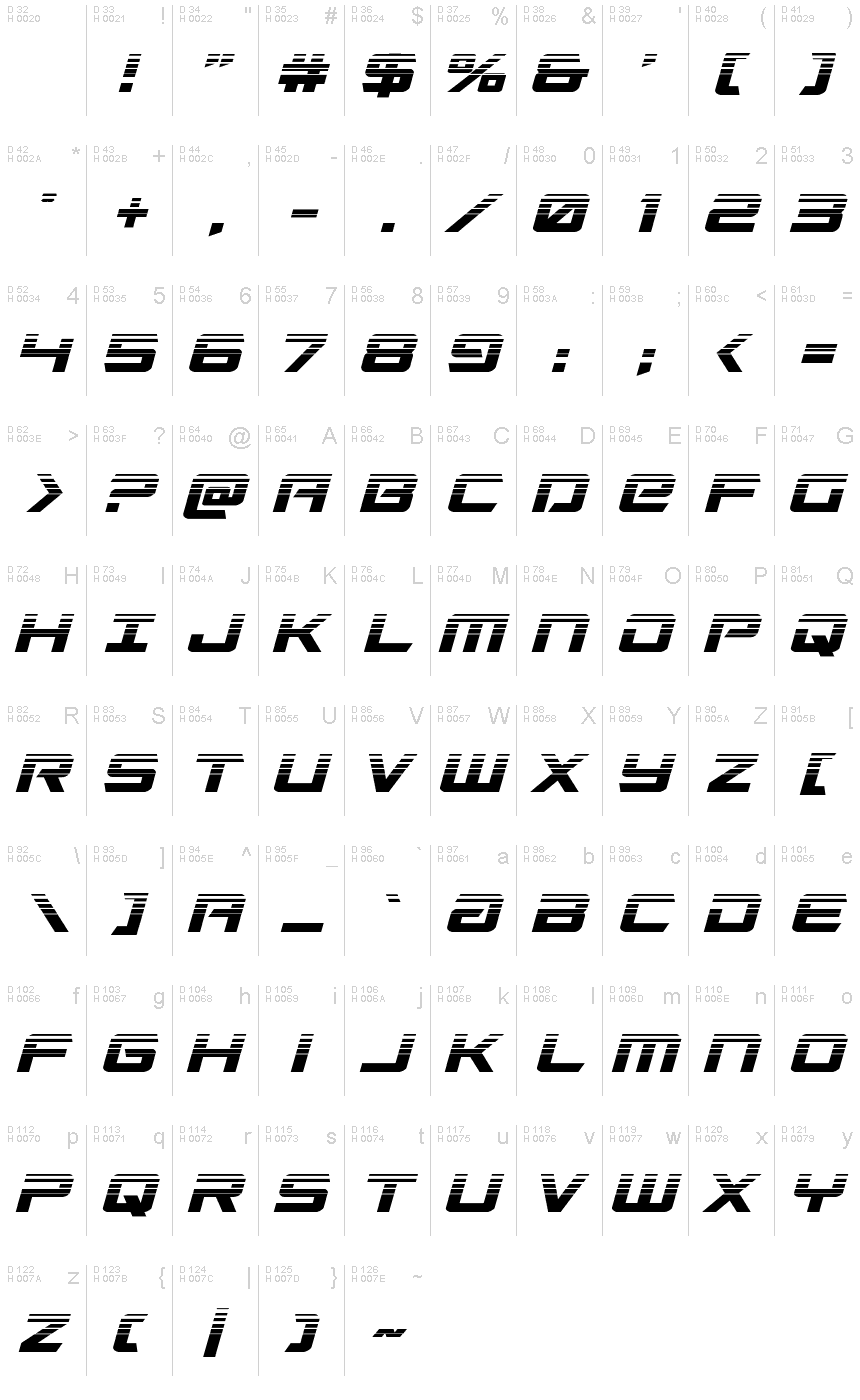
Captain Falcon Halftone Italic
Captain Falcon Halftone Italic is a futuristic, semi-bold font from the Captain Falcon font family designed by Iconian Fonts. With its sleek and edgy design, this display font is perfect for projects that demand a cutting-edge and modern look. Its extra-expanded width allows for maximum impact, making it ideal for logo designs, technology-related websites, gaming graphics, and sci-fi book covers. The unique halftone effect adds depth and texture to your visual creations while maintaining readability. Take your projects to new heights with the Captain Falcon Halftone Italic font!